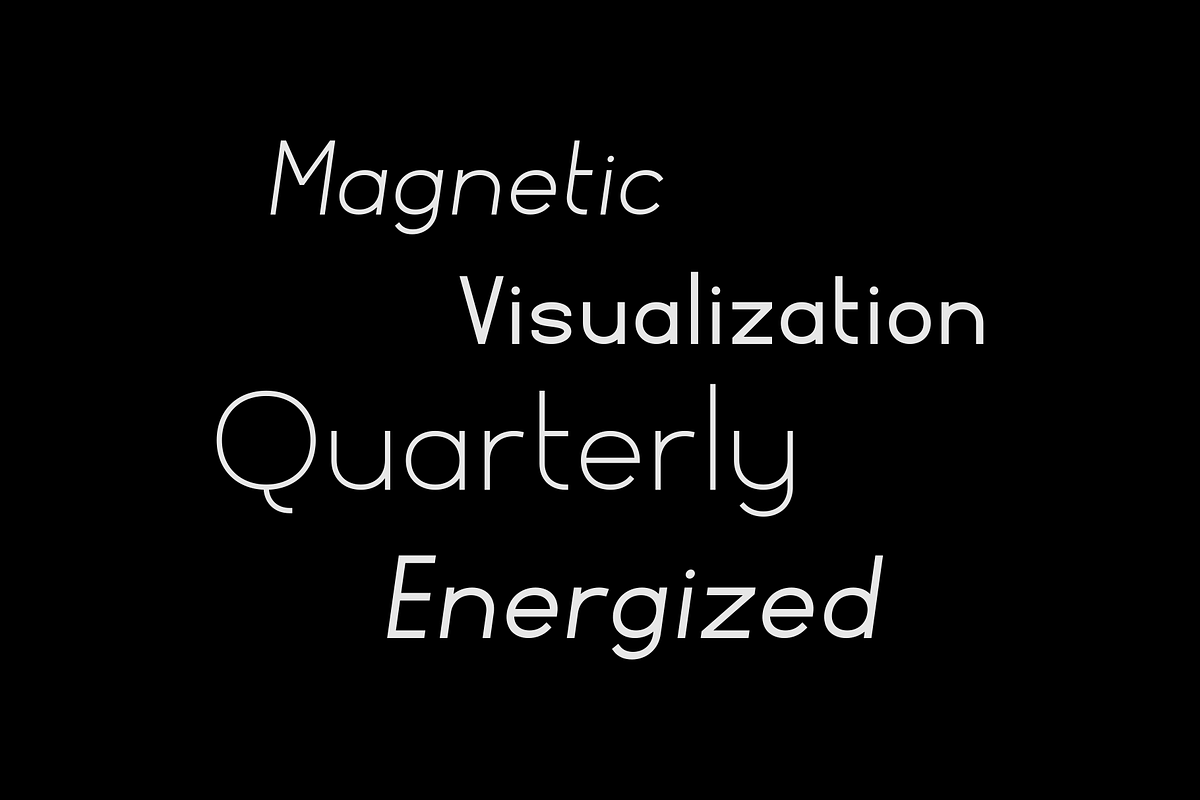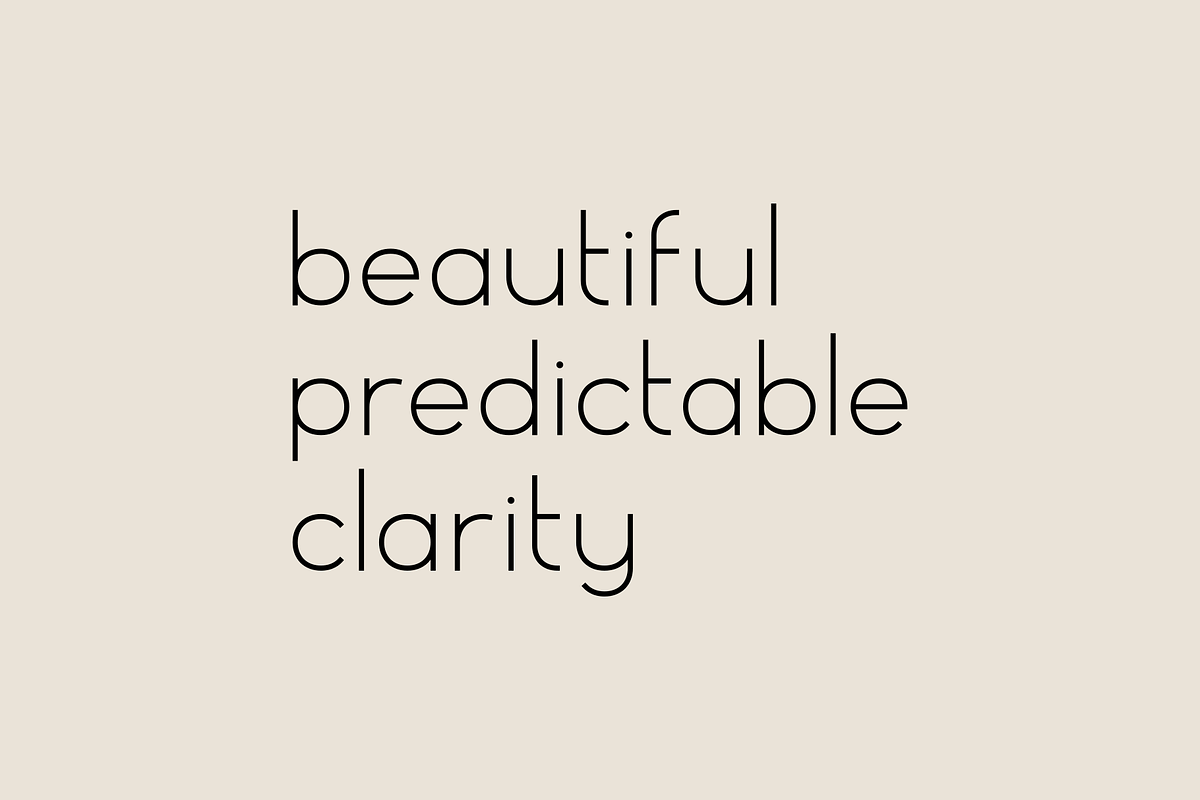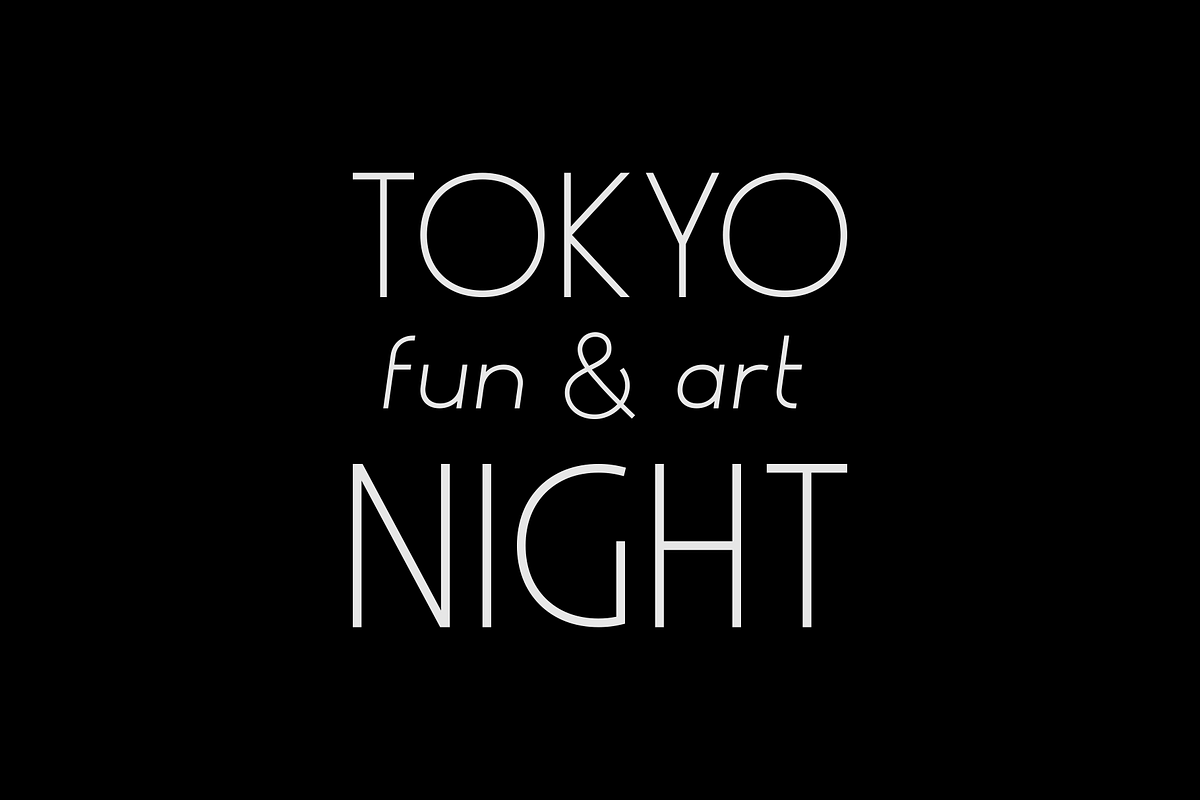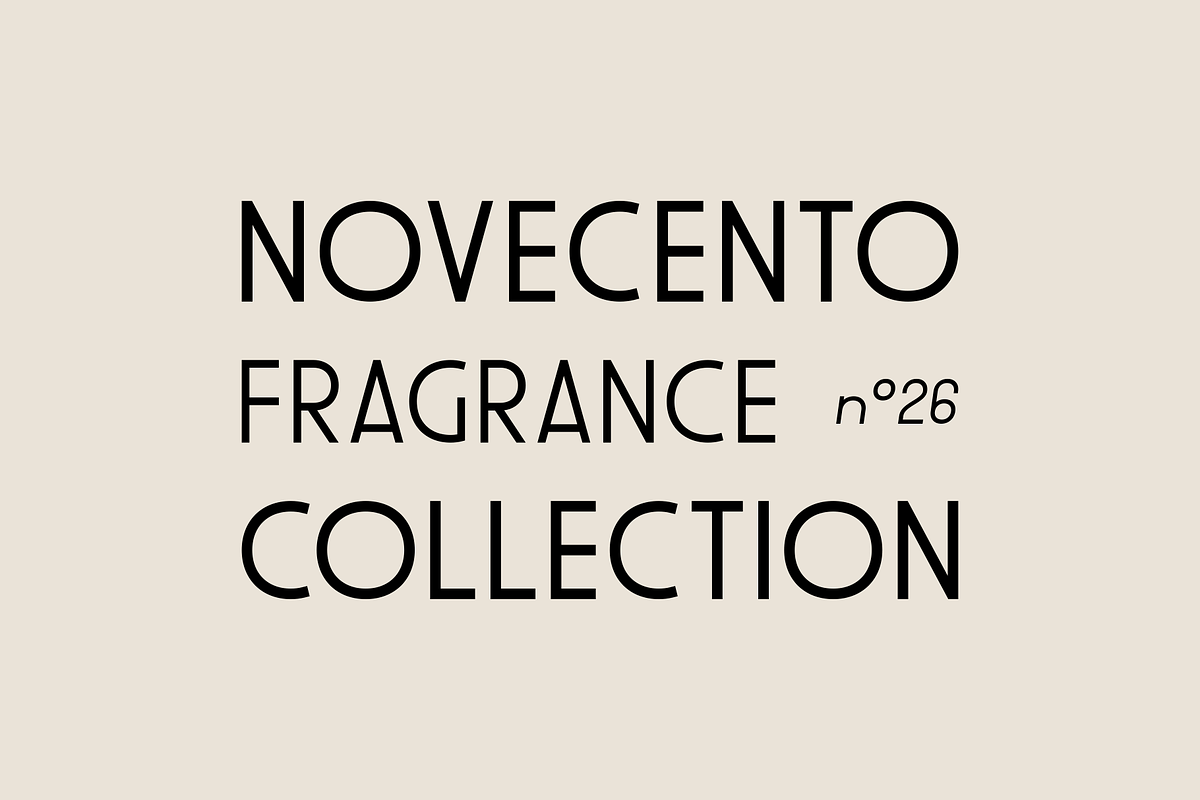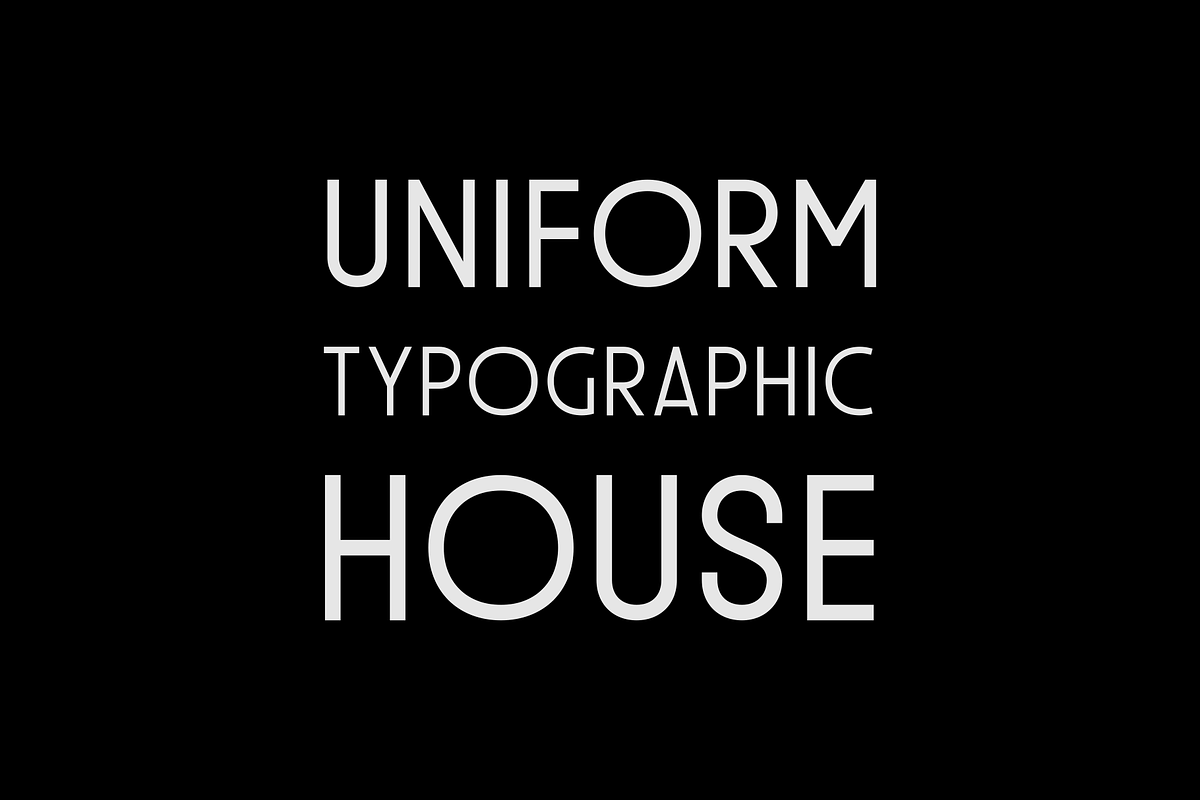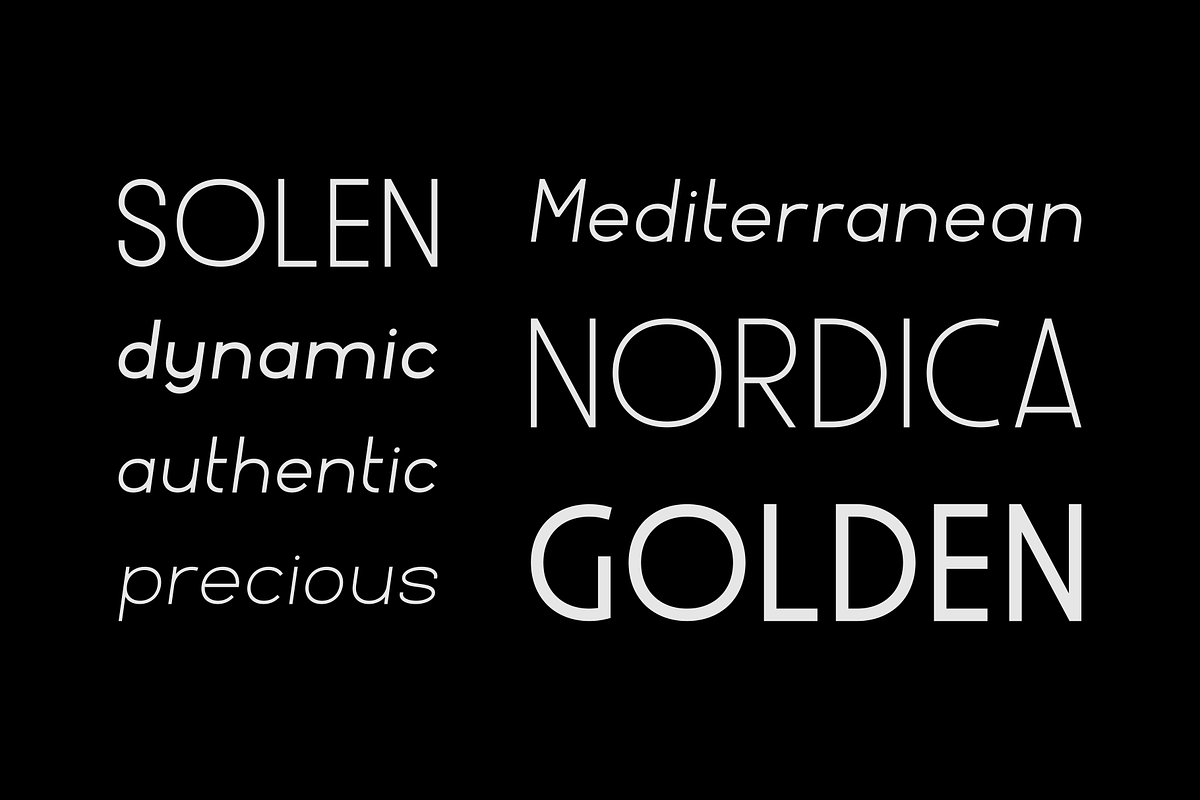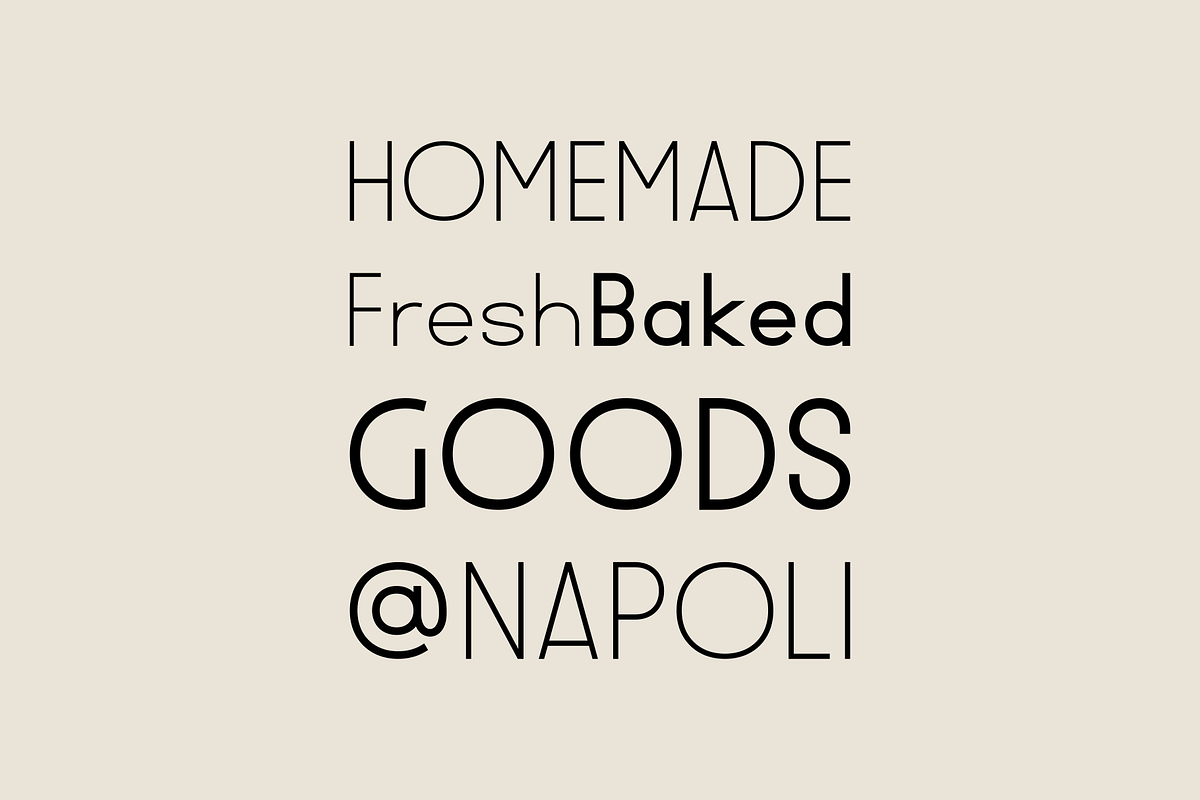
Giordano - Font Family
Giordano is a font family alternating between rectangular and circular forms.
Giordano - Font Family by Stefano Giliberti fits naturally into Branding, posters, packaging, typography.